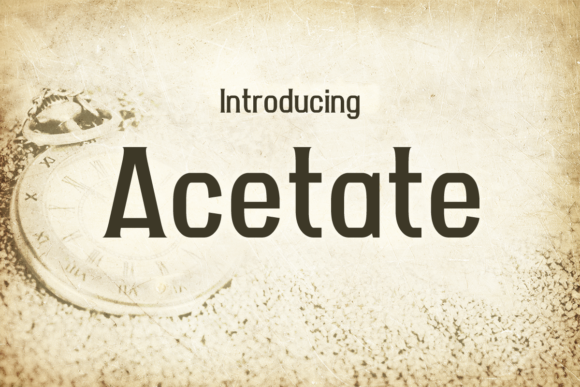
Prepare to be spellbound by Acetate Font, a tantalizing display typeface that will captivate your designs with its captivating simplicity. Crafted by the ingenious Chequered Ink, this font exudes a timeless elegance that transcends fleeting trends.
Acetate Font's delicate strokes and refined curves evoke a sense of sophistication and grace, making it an ideal choice for a wide array of design endeavors. Its clean lines and airy structure lend an airy lightness to any project, whether it be branding, packaging, or web design.
Immerse yourself in the allure of Acetate Font and let its charm elevate your creations to new heights. Its versatile nature empowers you to express your unique style effortlessly, from classic and understated to modern and edgy.